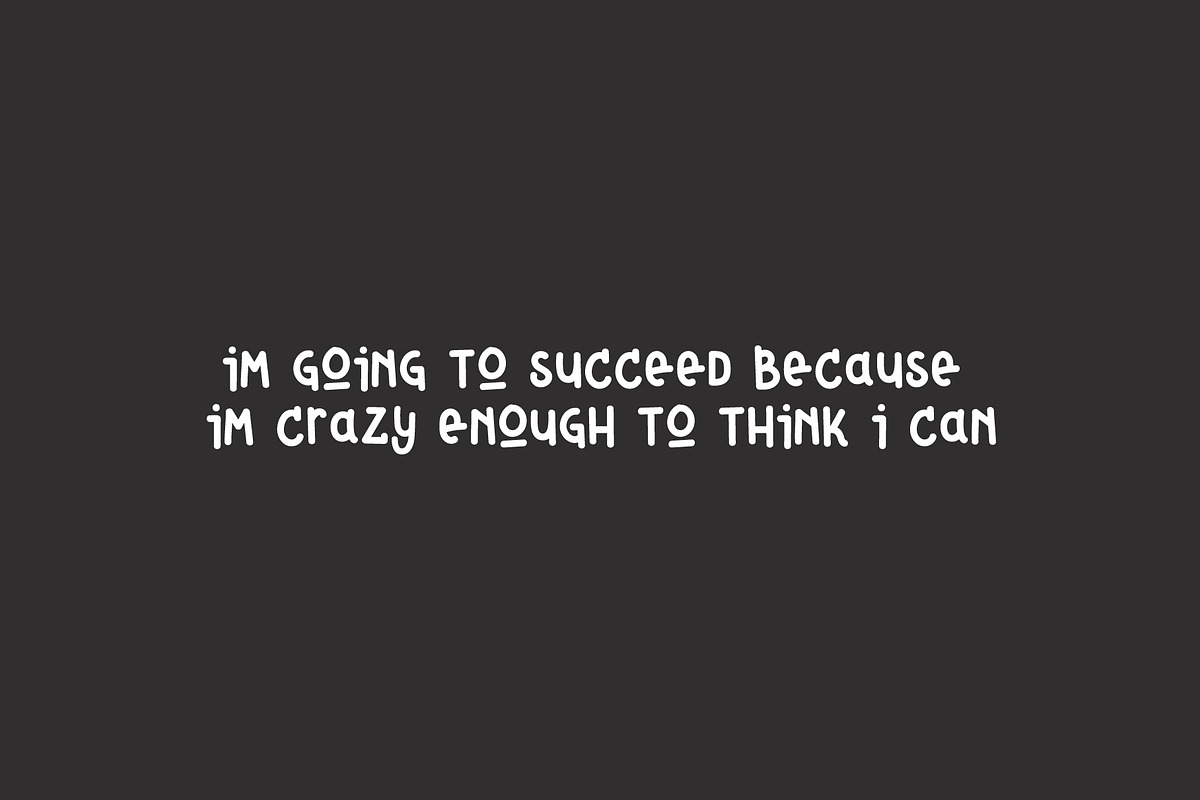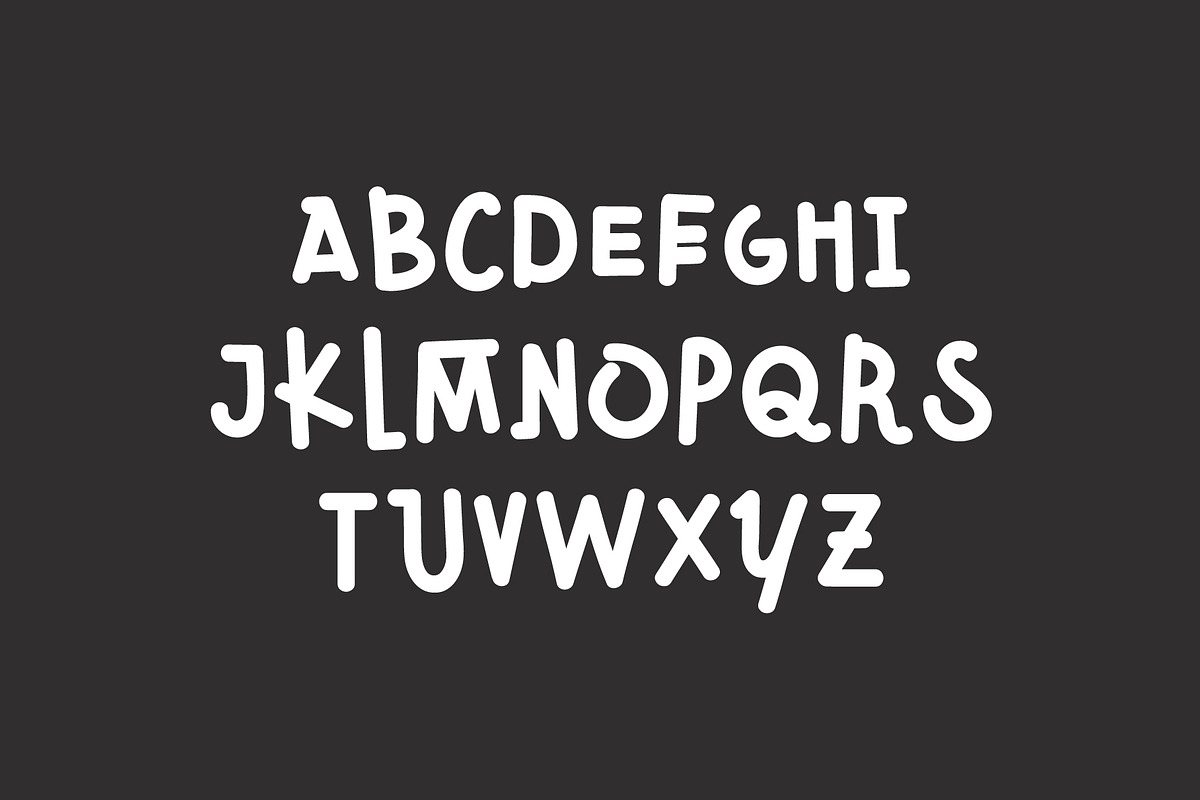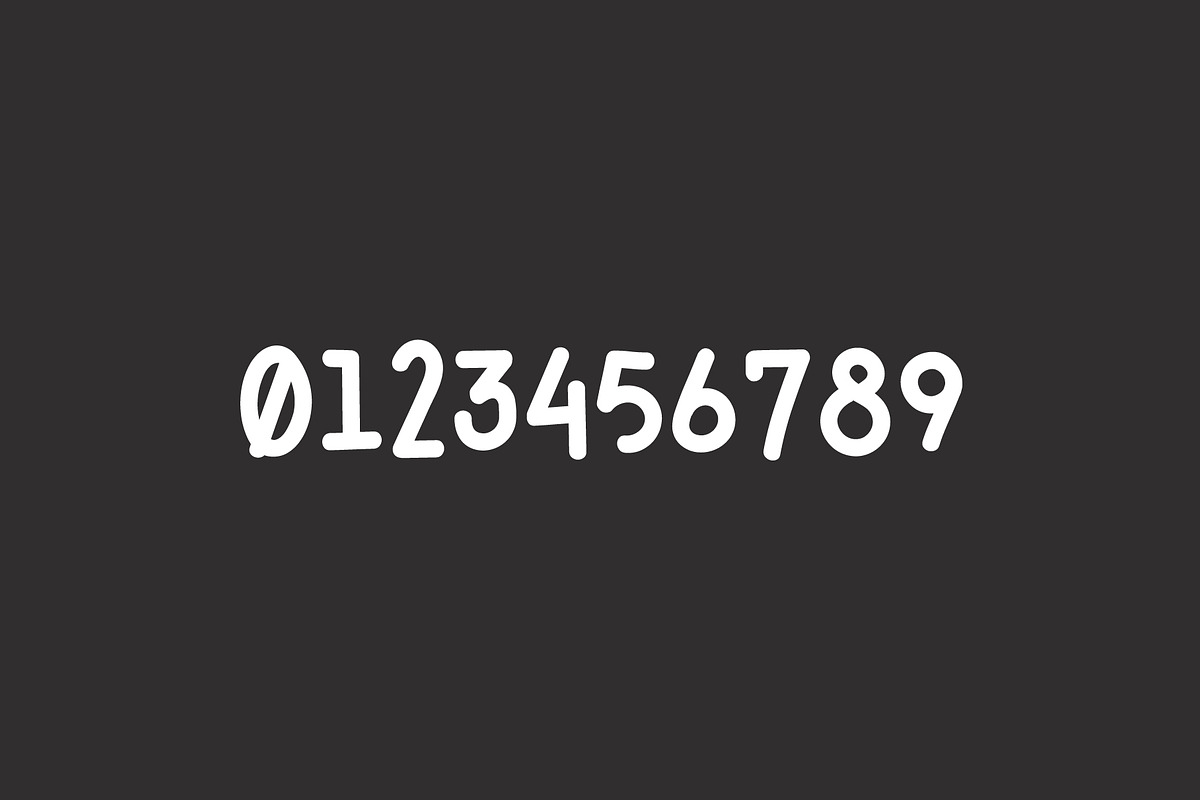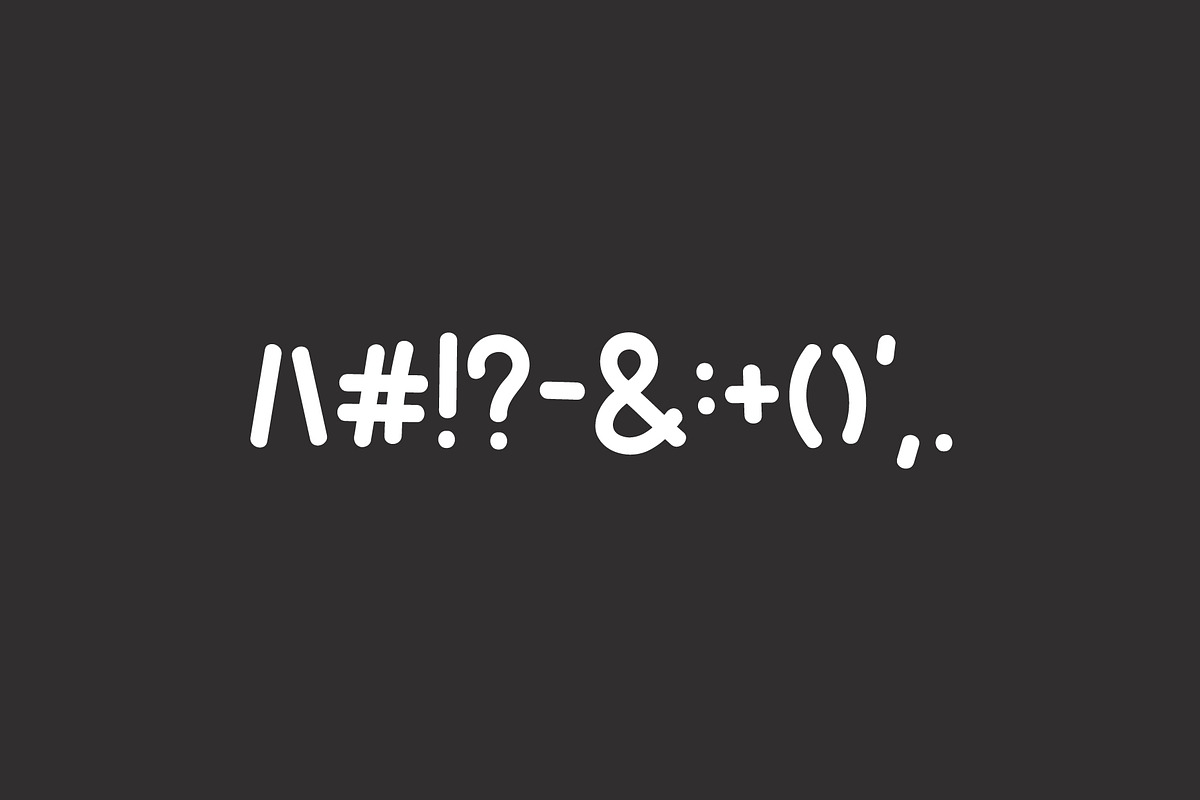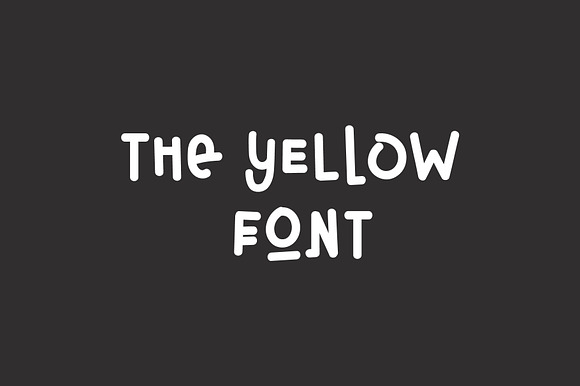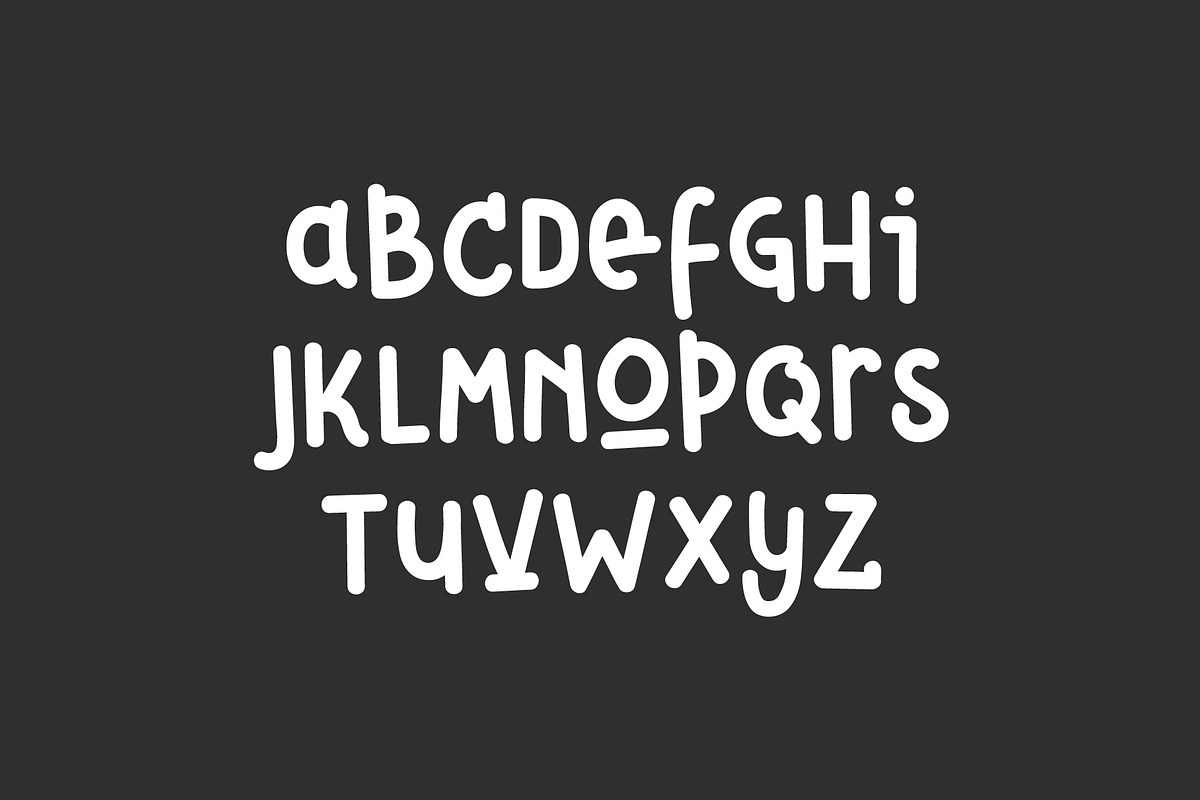
The Yellow Font
a creative font for those who dare
Why The Yellow Font is worth a look
The Yellow Font by Sven Pels fits naturally into Branding, posters, packaging, typography.